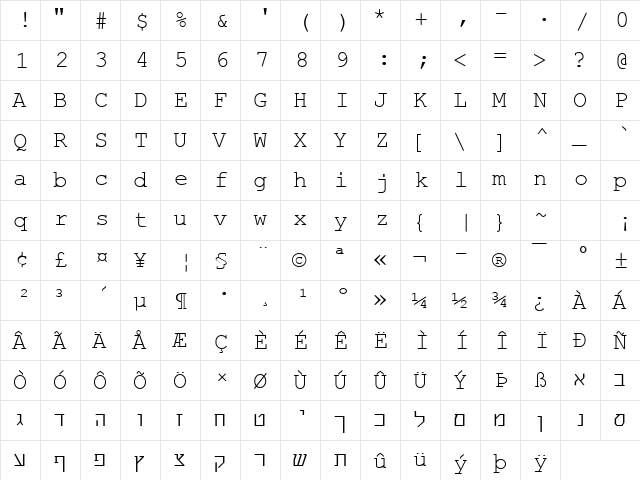
Web Hebrew Monospace Regular
Design Context for Web Hebrew Monospace Typeface
Web Hebrew Monospace brings the precise, column-aligned rhythm of monospaced typography to designs that value technical clarity and systematic order.
A natural fit for code editors, technical documentation, developer-focused branding, and terminal-inspired UI.